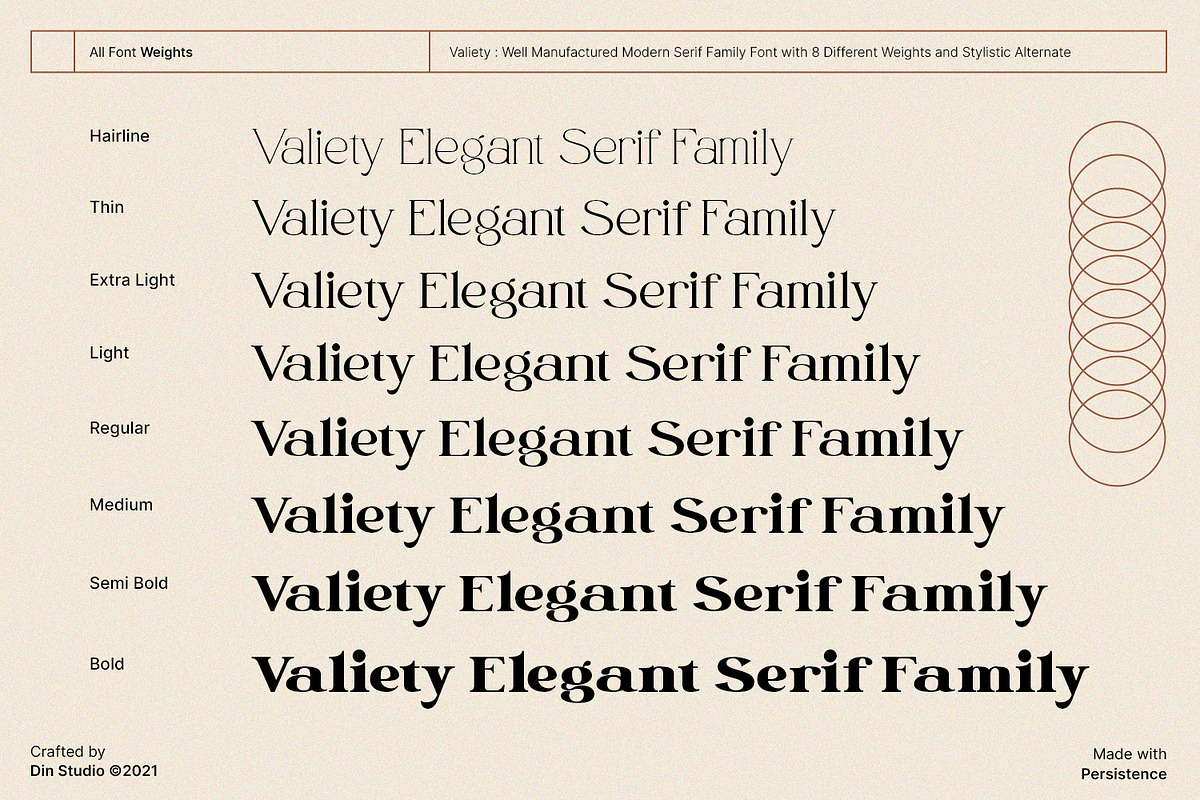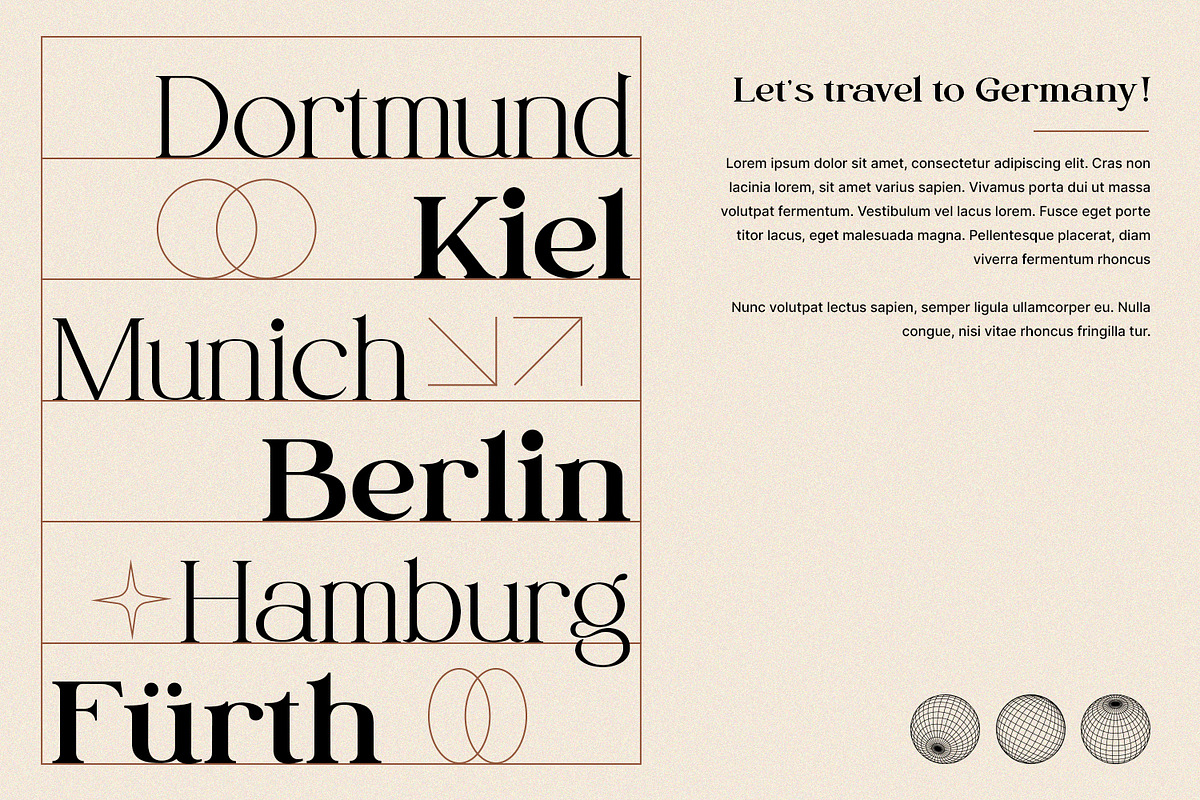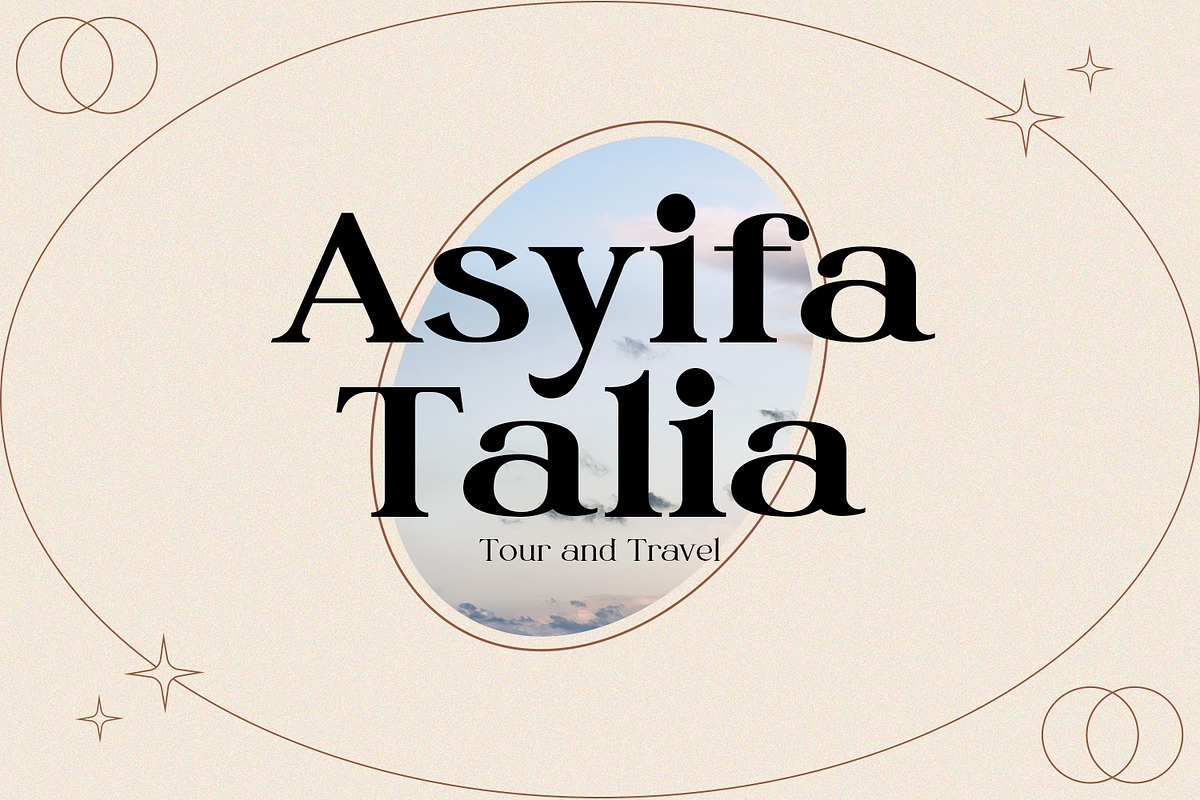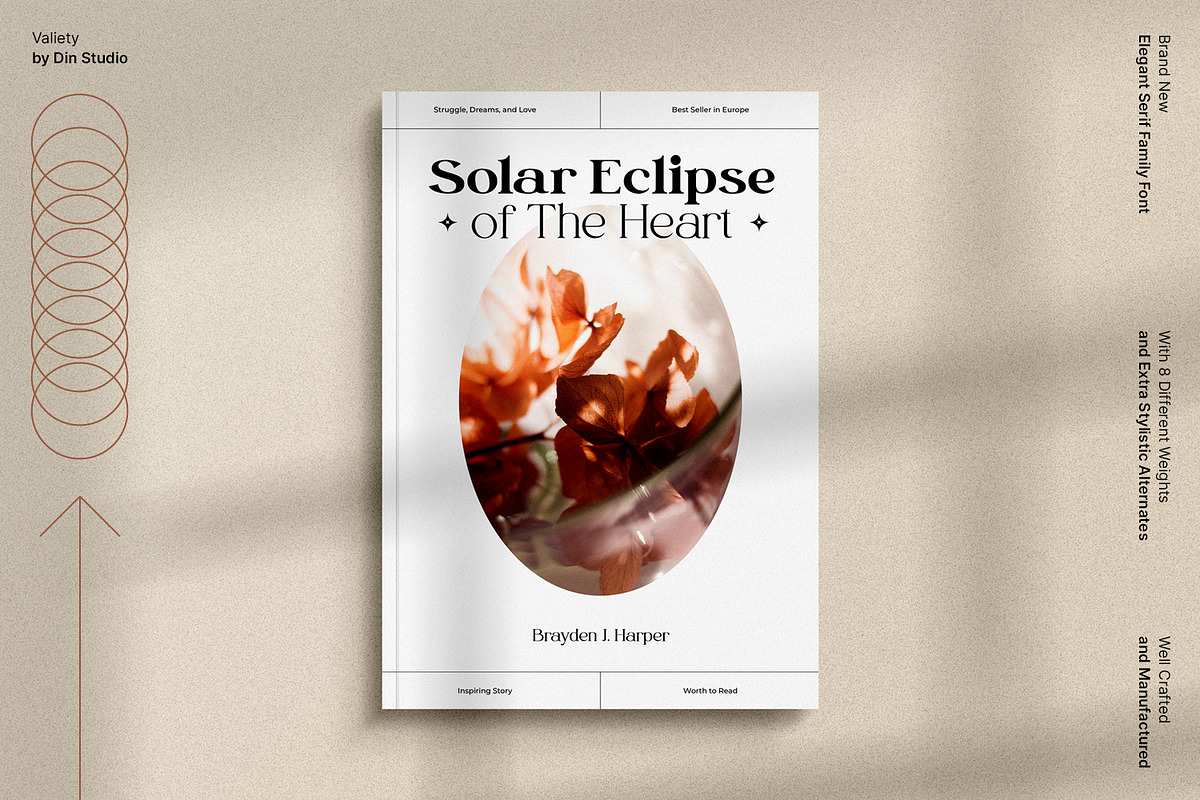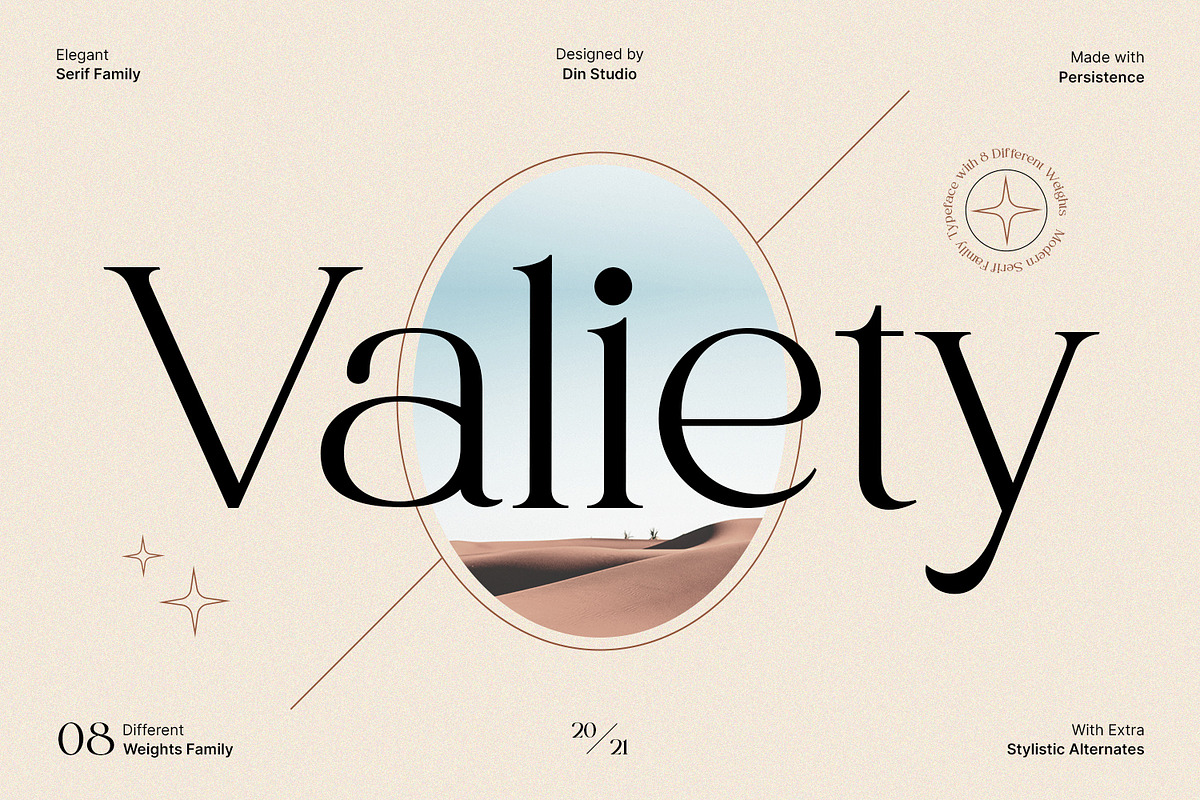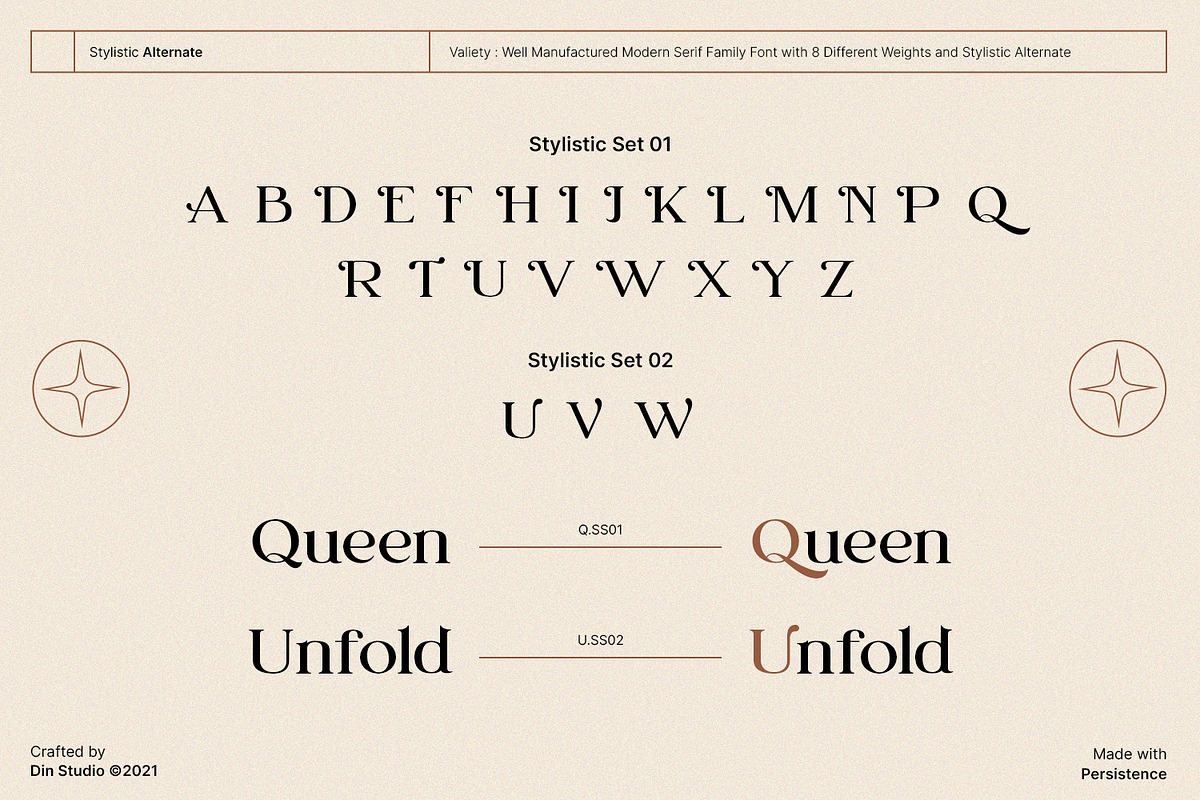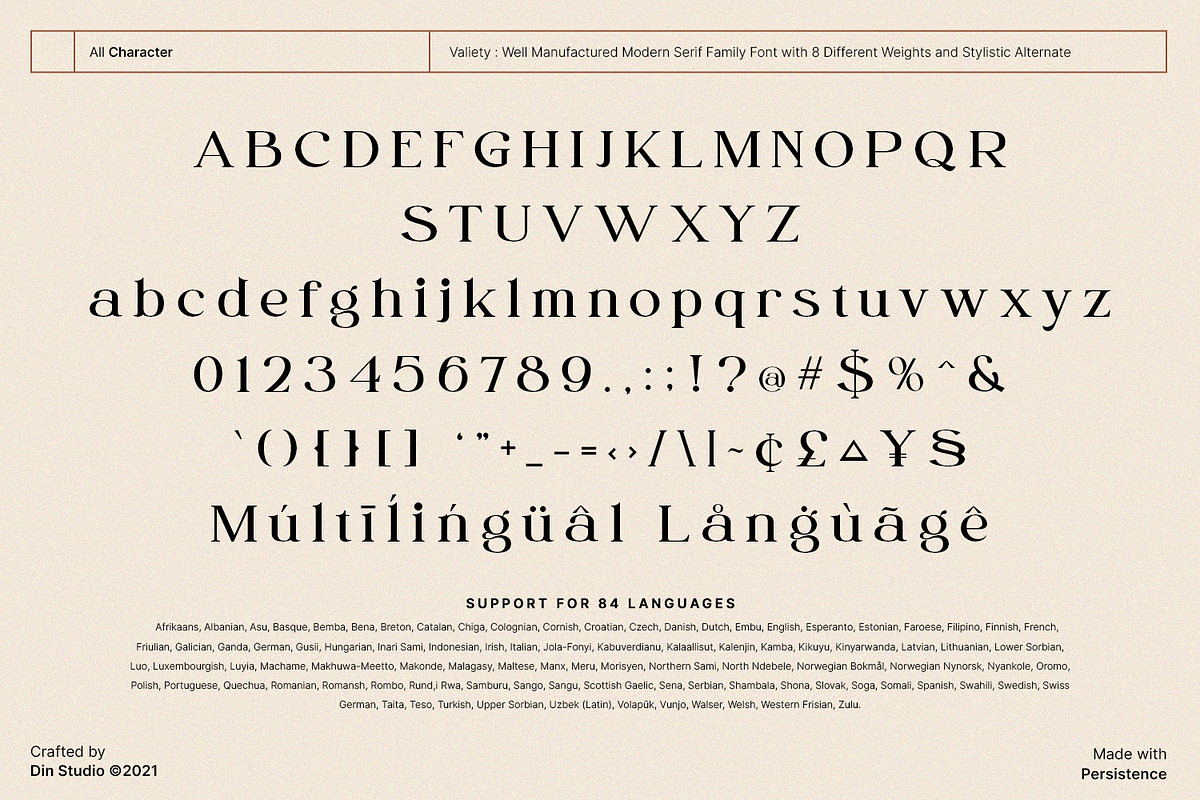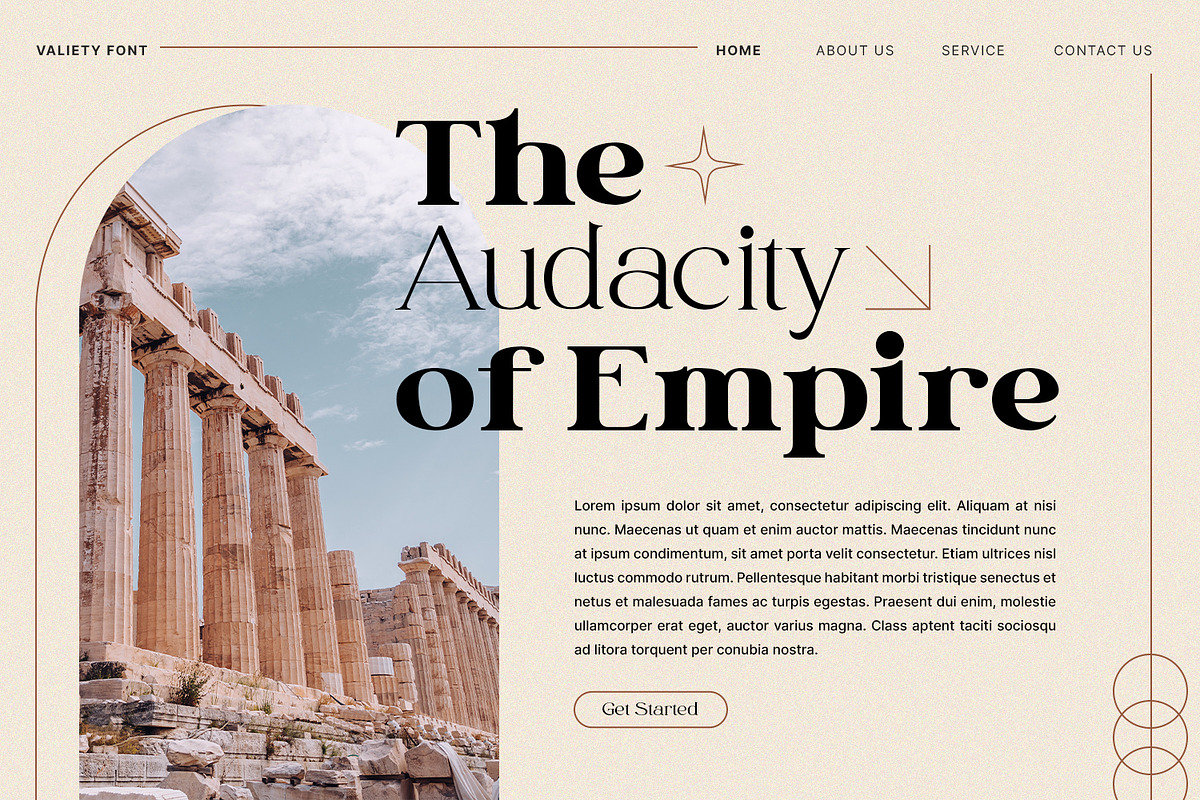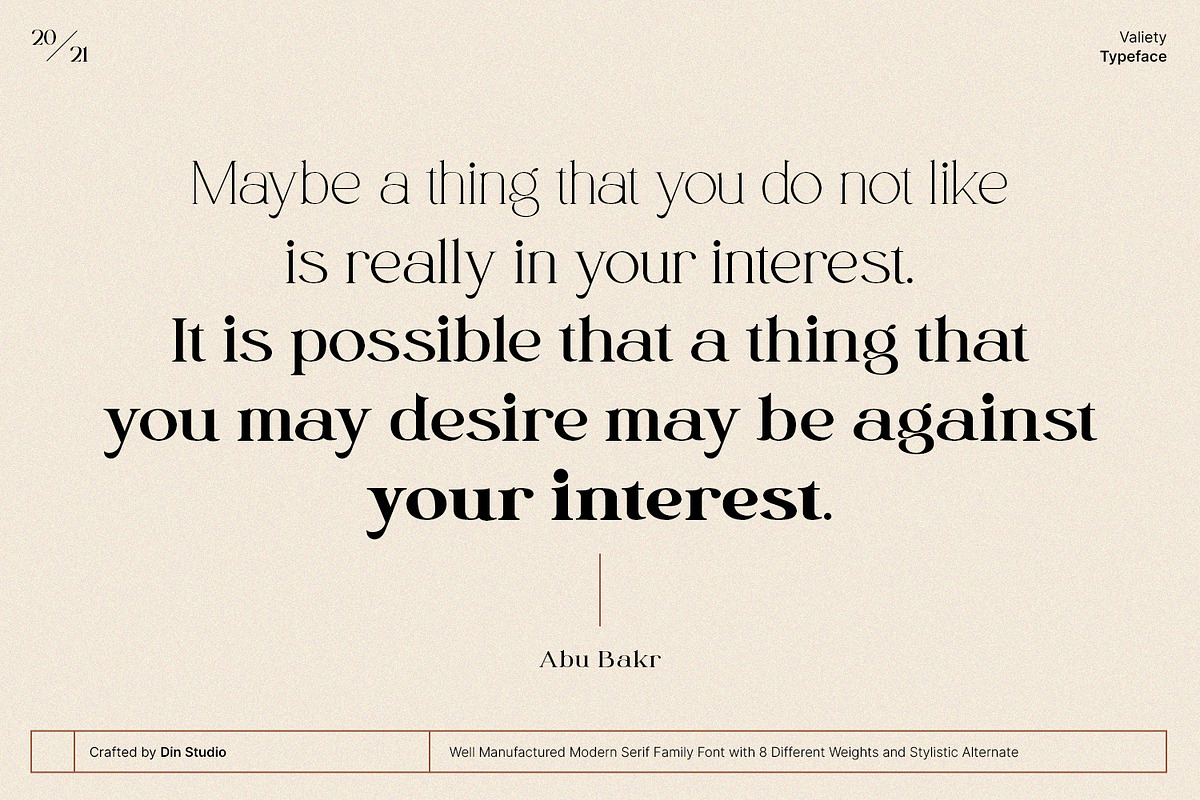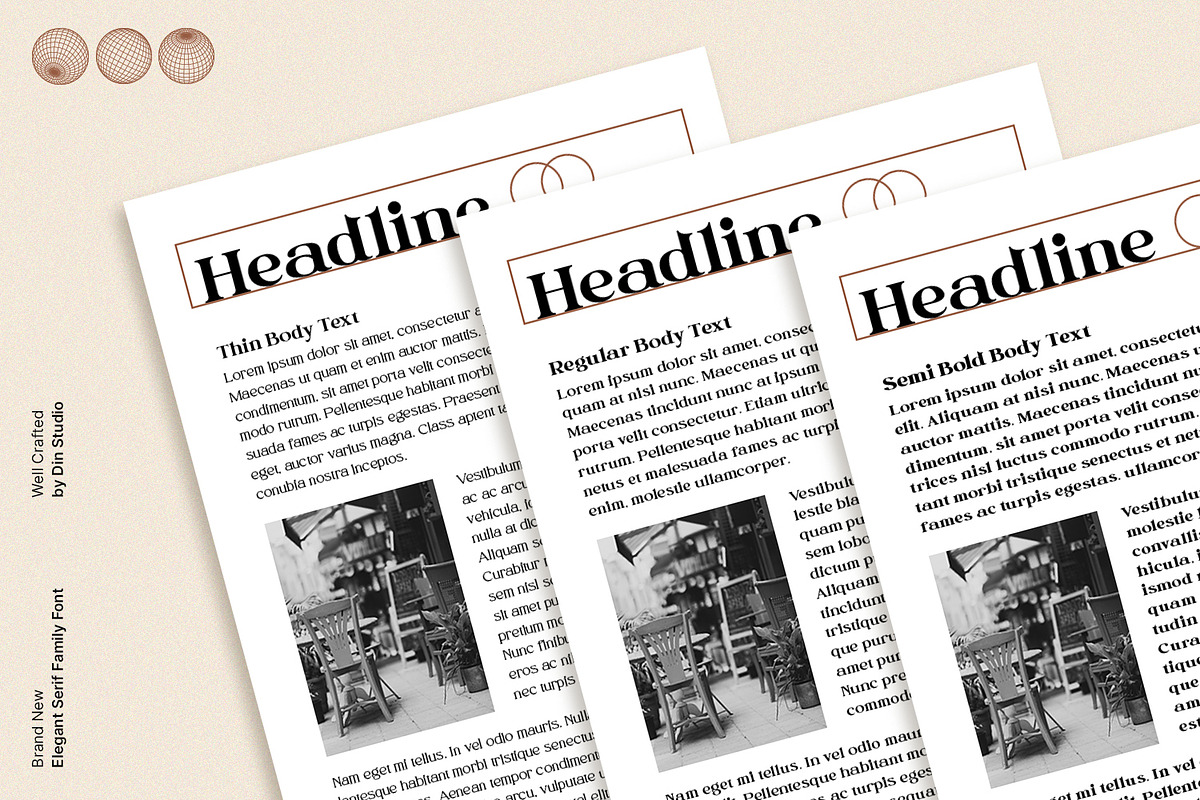
Valiety
Valiety is a serif font family to better charm your designing experiences. It consists of eight different levels to add elegant, modern touches to your designs. Valiety has a continuity aspect produced from each small stroke in order to help the eyes smoothly move from one letter to another. Besides, the thickness differences are unnoticeable so that it leaves stable, legible impressions. With such flexibility, you can use it in either bigger- or smaller-sized texts.
Include 8 different weight fonts :
- Valiety Hairline
- Valiety Thin
- Valiety Extra Light
- Valiety Light
- Valiety Regular
- Valiety Medium
- Valiety Semi Bold
- Valiety Bold
Valiety is best for any design projects, such as posters, banners, logos, book covers, invitations, quotes, headings, printed products, merchandise, social media, etc. Find out more ways to use this font by taking a look at the font preview.